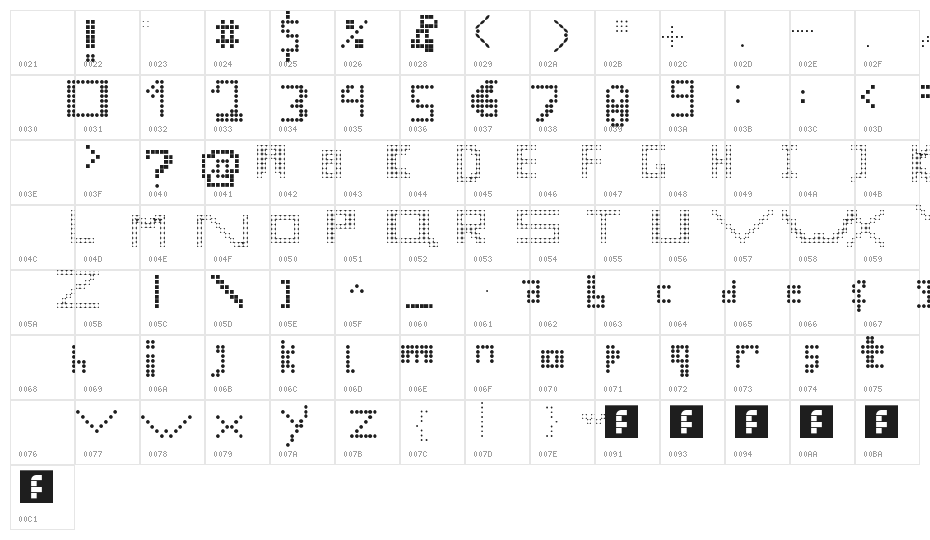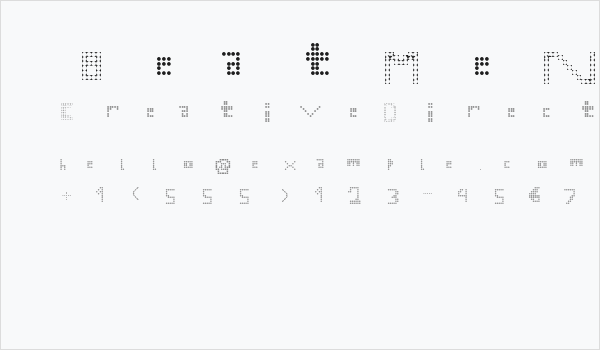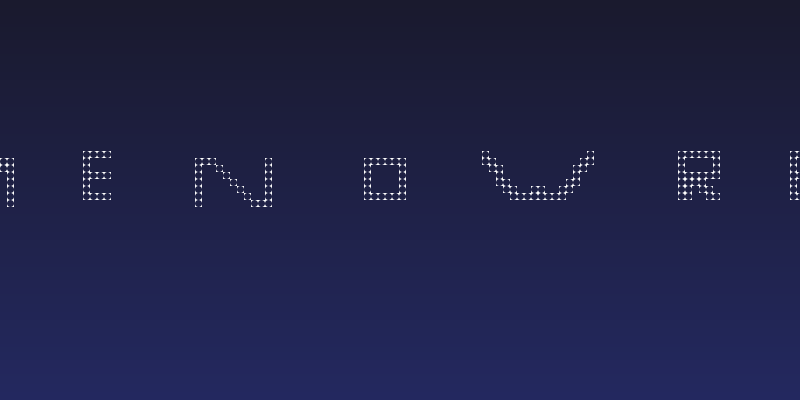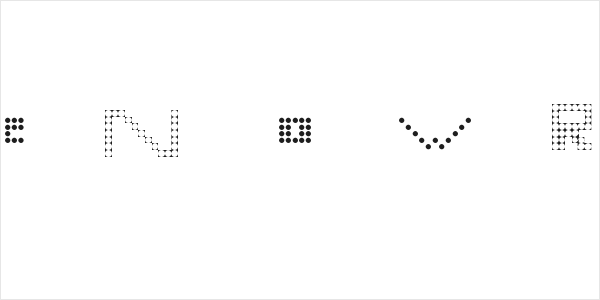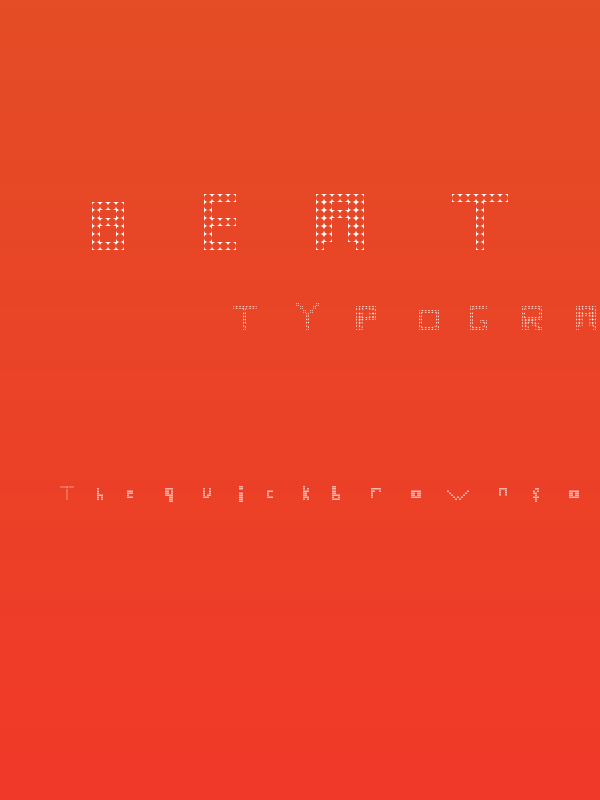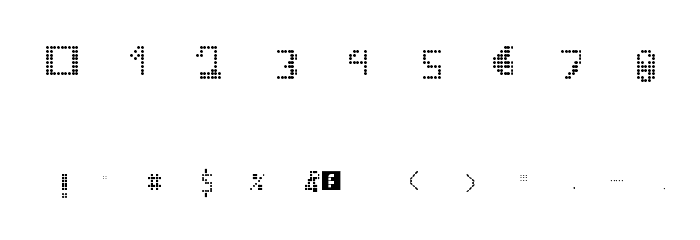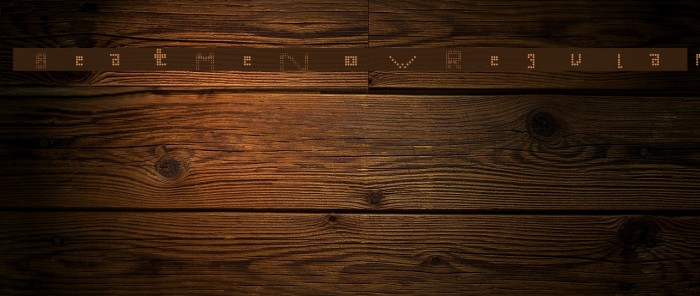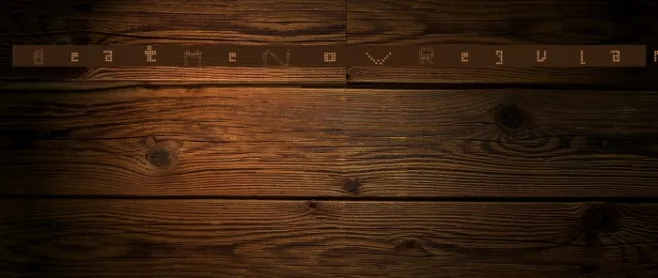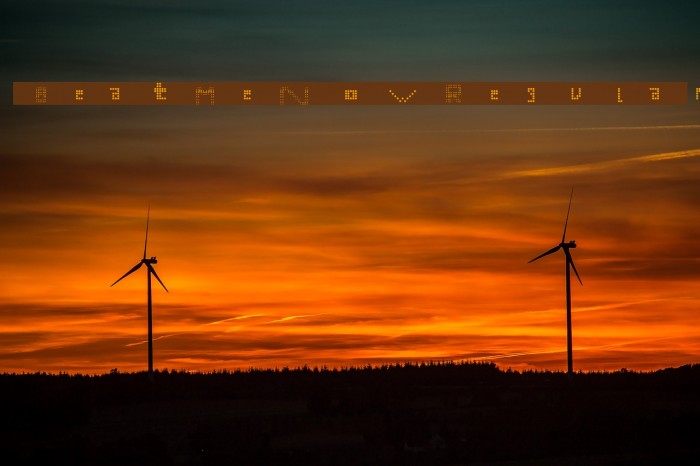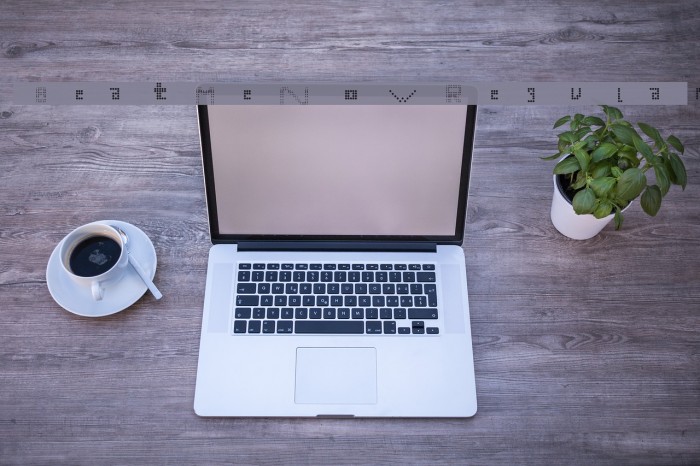
Beat Me Now Regular Font
Beat Me Now Regular Description
This font features a unique dot matrix style, reminiscent of digital displays and retro computing. Each character is constructed from a grid of dots, giving it a pixelated appearance. The uppercase and lowercase letters maintain a consistent height, while the numbers and special characters follow the same design principle. The overall look is geometric and structured, with each letterform clearly defined by its dot pattern. This font exudes a sense of nostalgia, making it ideal for projects that aim to evoke a retro or tech-inspired aesthetic.
| Use Case | Logos, Posters, Digital Art |
| Proposed Projects | Ideal for retro-themed designs, digital art projects, tech-related branding, and nostalgic video game graphics. |